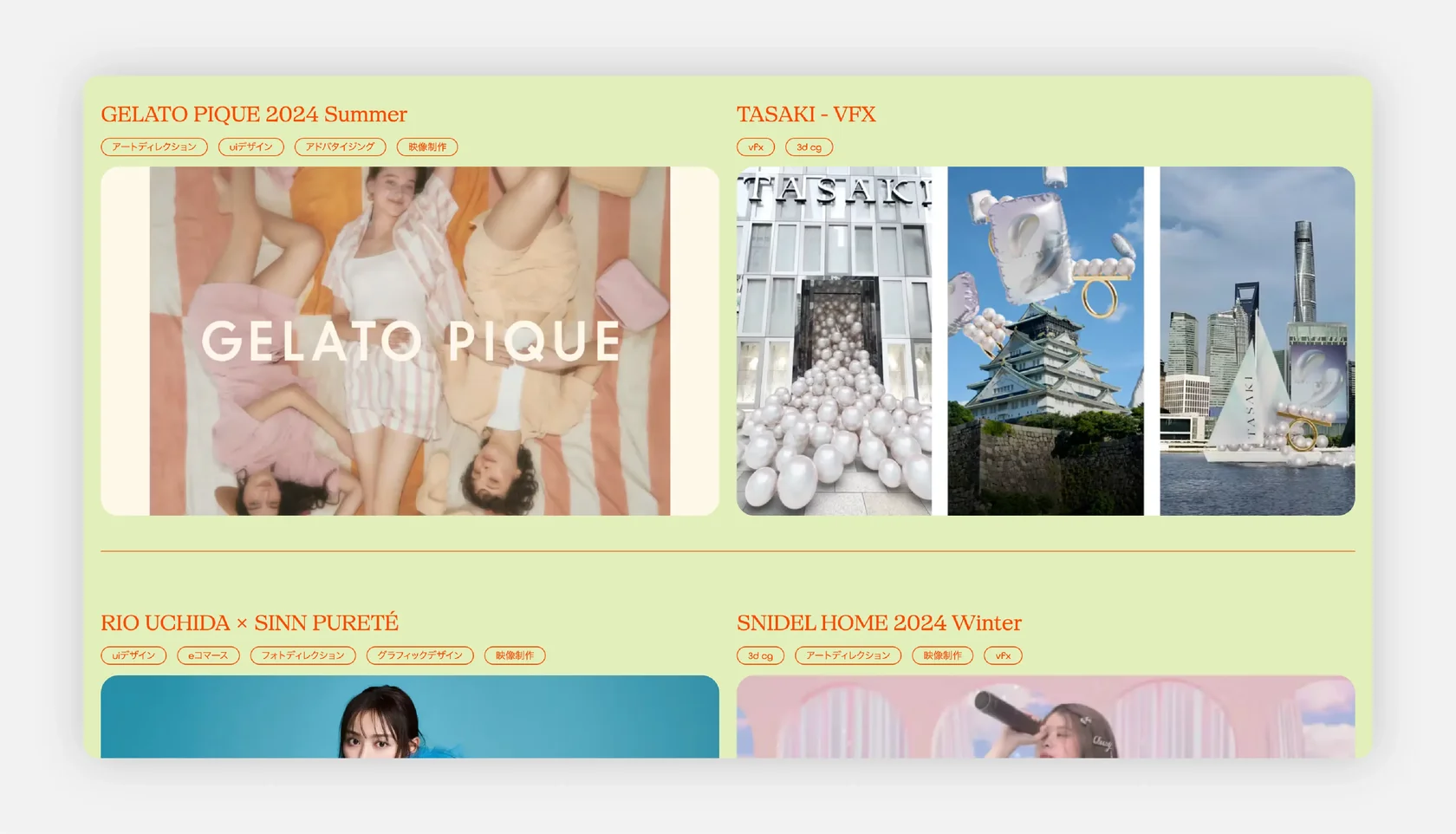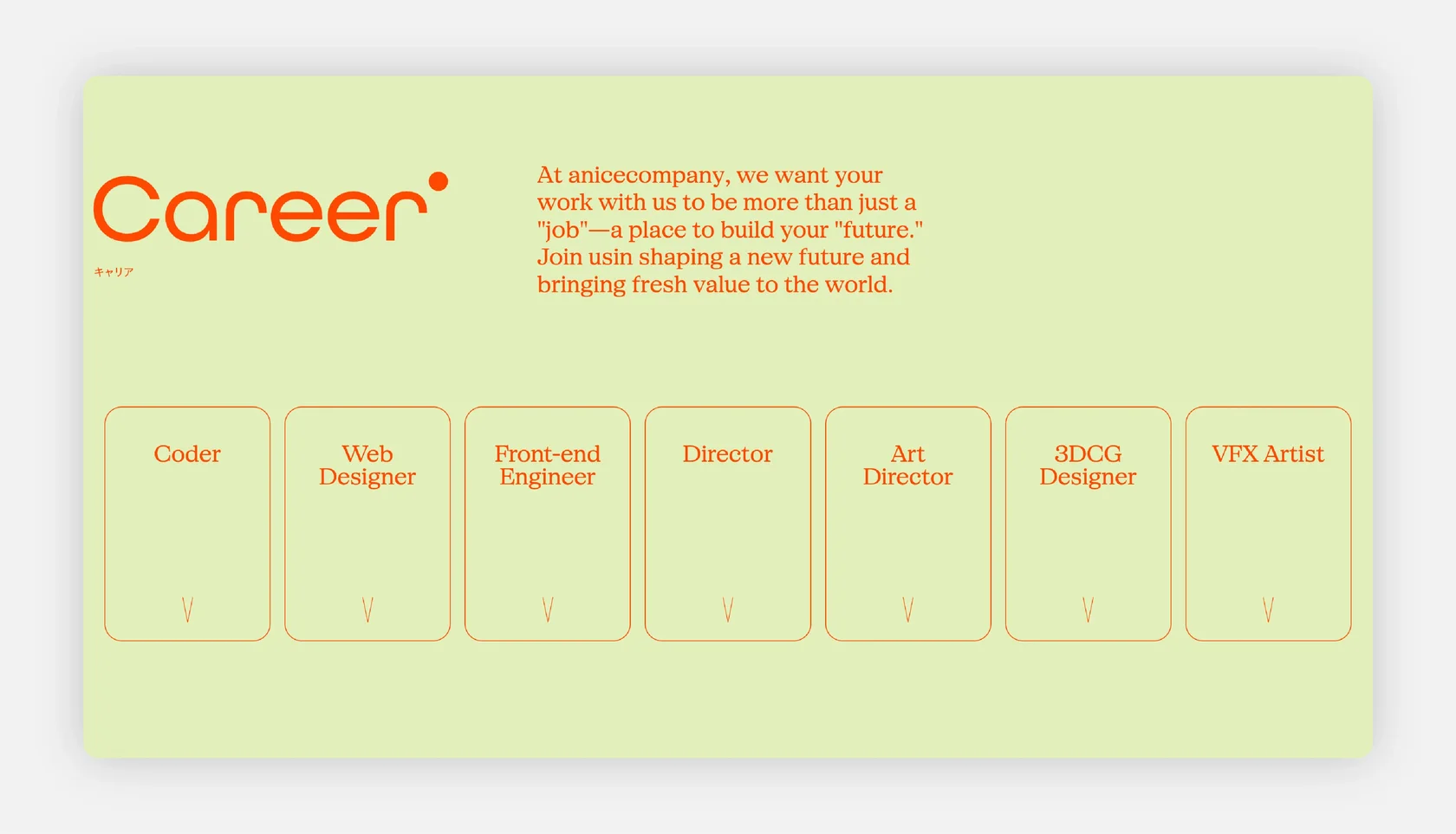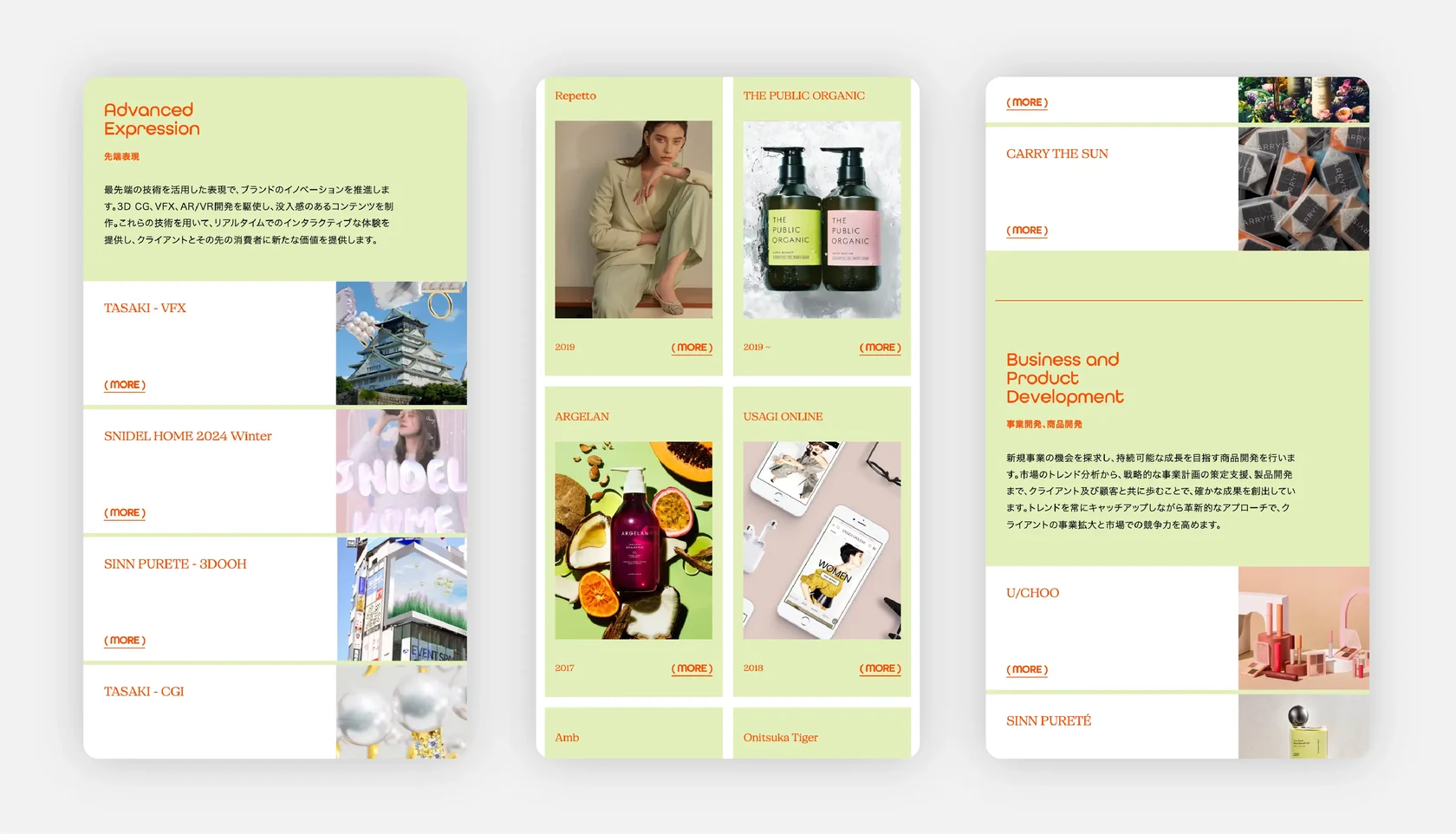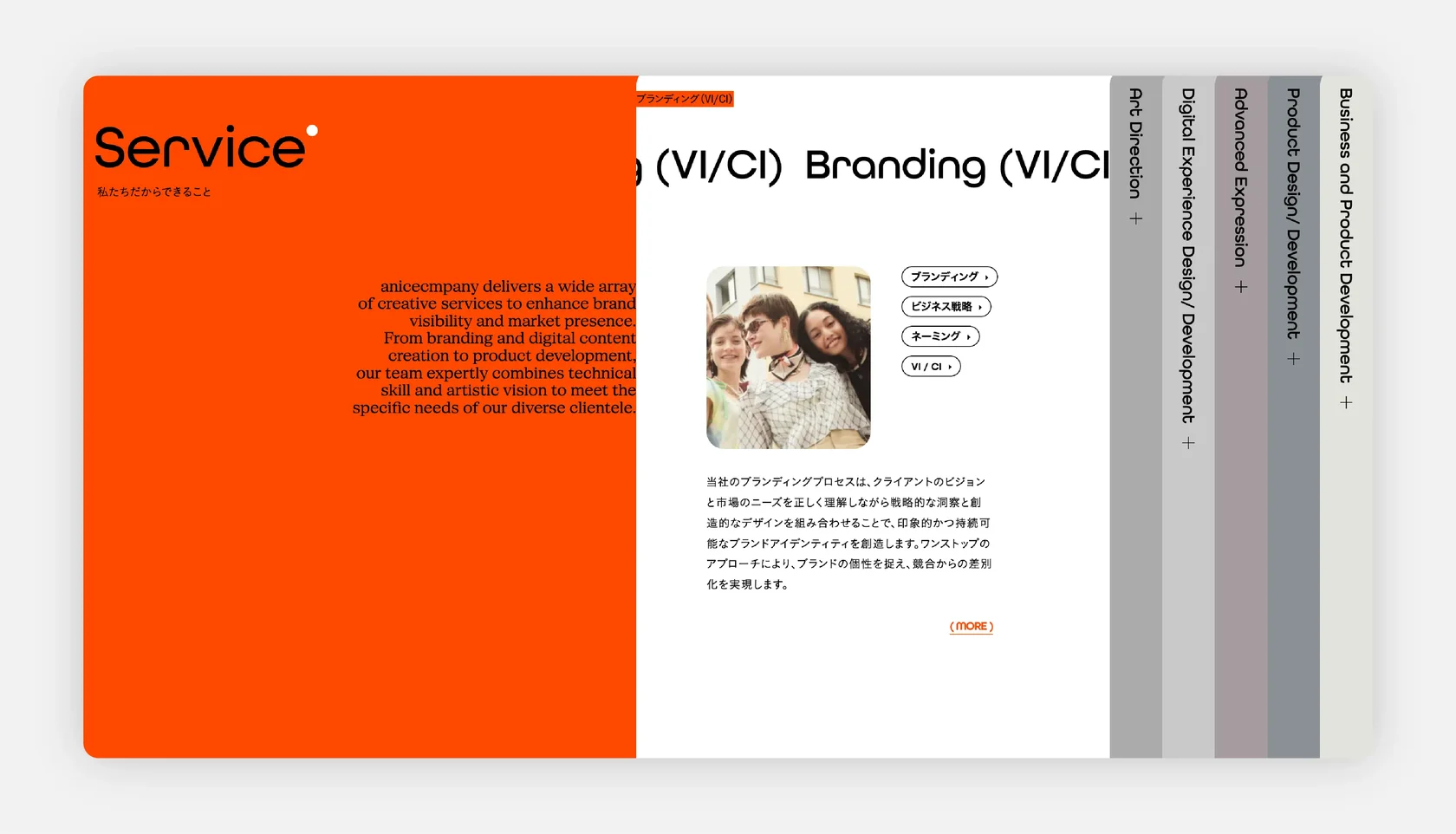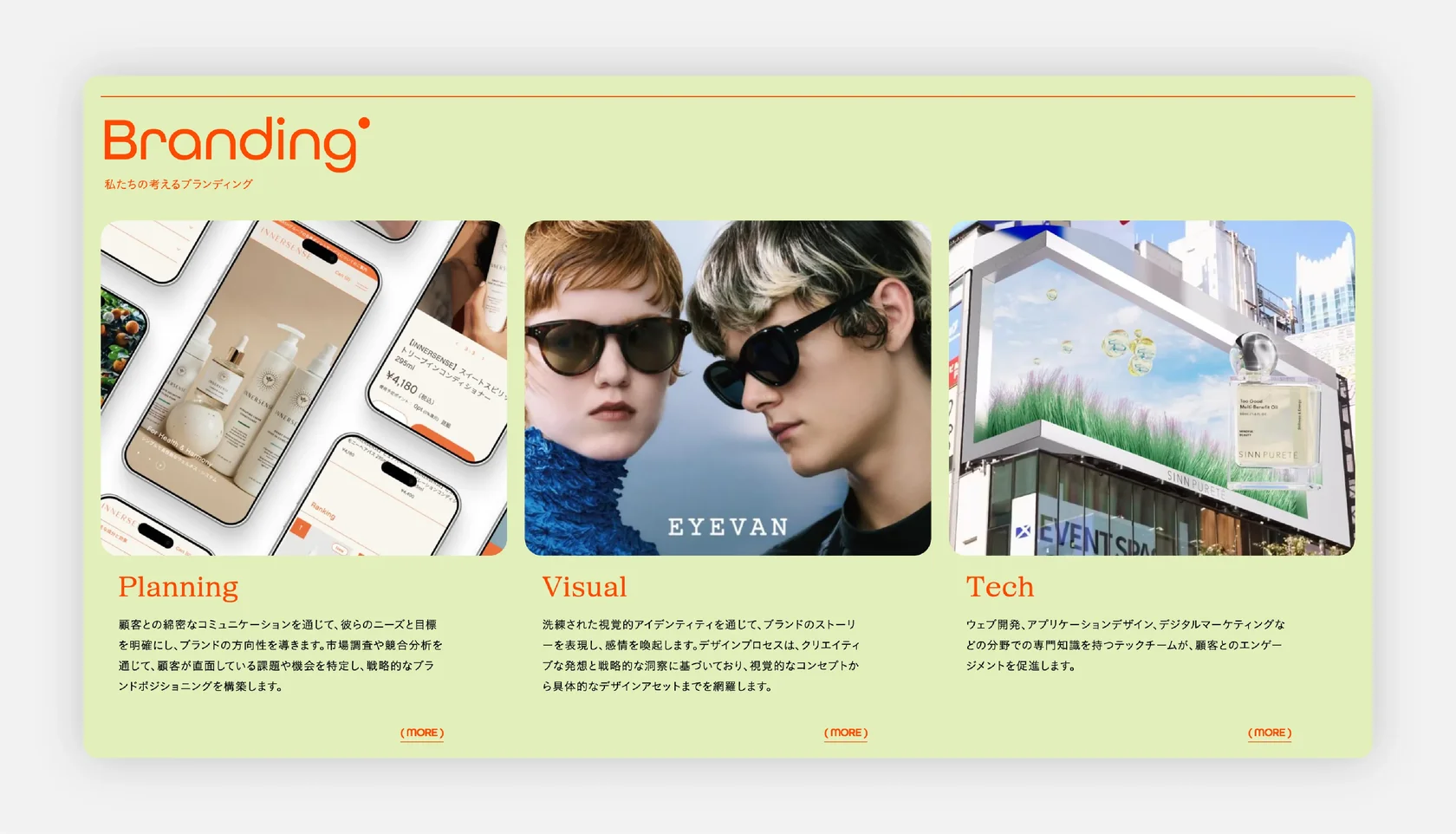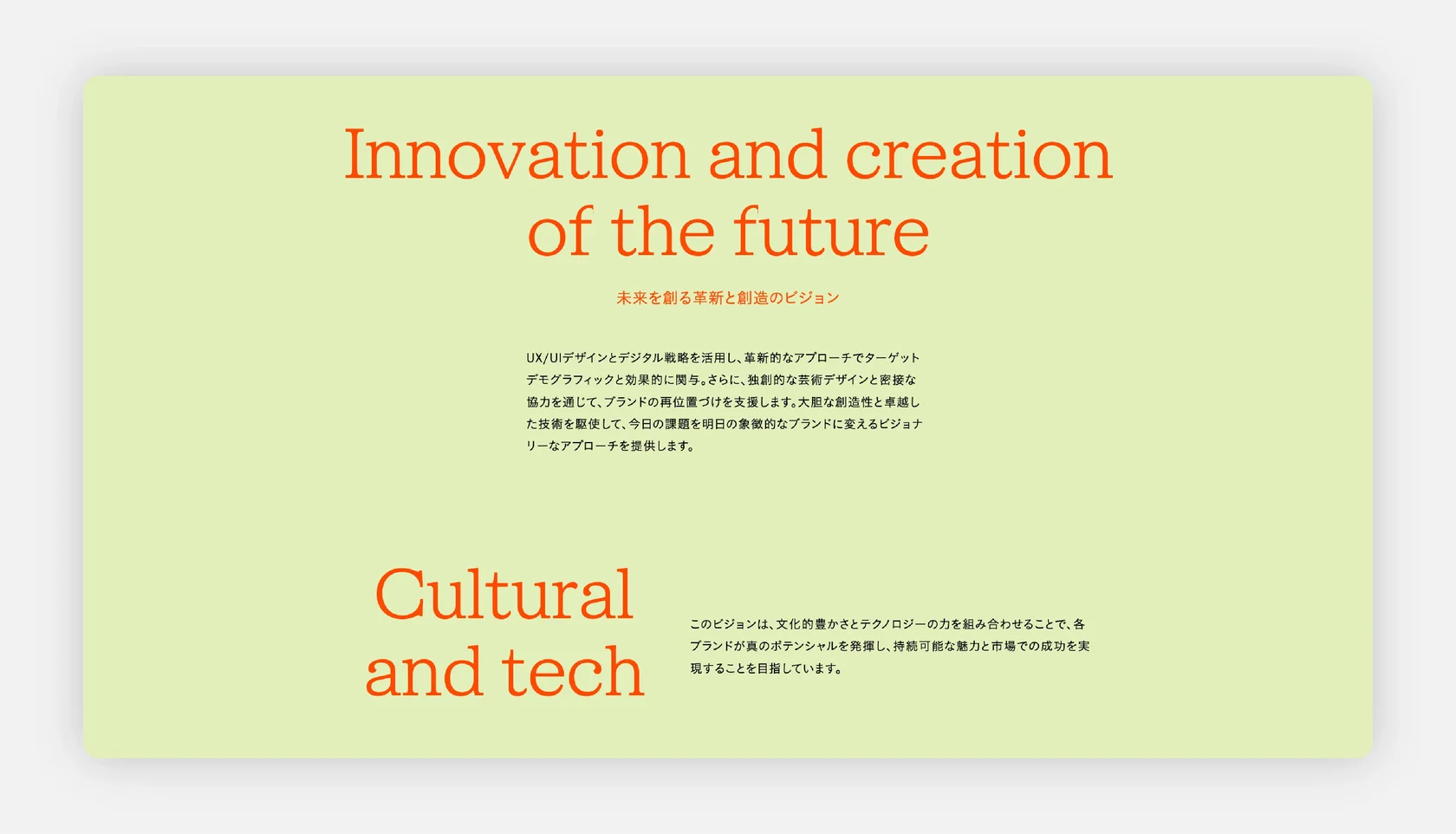
Anicecompany — Creative Branding & Experience Studio
Font: SFT Schrifted Serif + All Round Gothic.
Use case: Website design & brand identity.
About the Project:
Anicecompany is a Tokyo/Fukuoka–based creative studio working across branding, web, product development, and events within fashion, beauty, and lifestyle fields. Their website reflects this multidisciplinary focus through bold visuals and a confident typographic voice.
Why SFT Schrifted Serif?
On their website, SFT Schrifted Serif is paired with the geometric All Round Gothic, creating a contrast between expressive serif detailing and a futuristic sans foundation. The serif is used selectively—supporting key statements and editorial-style blocks—introducing a more crafted, human tone within an otherwise modern, rounded typographic system. This interplay reinforces the agency’s philosophy of merging creativity, clarity, and technical skill across diverse brand work.